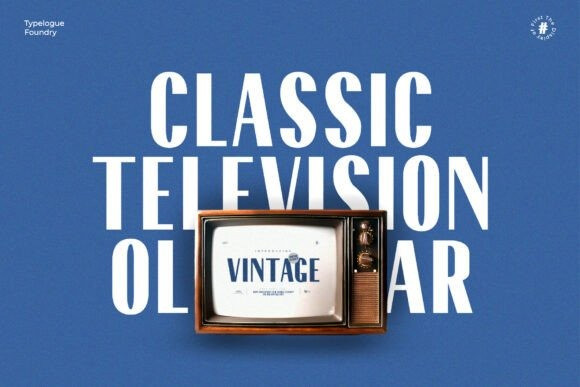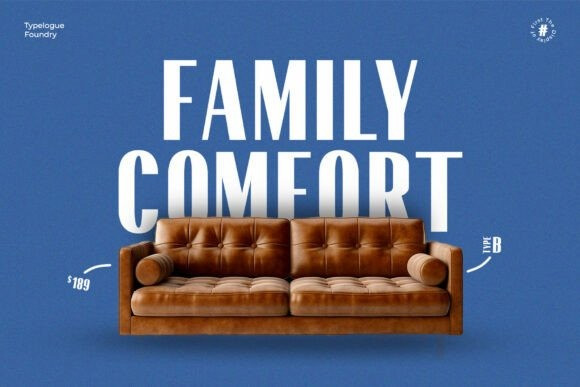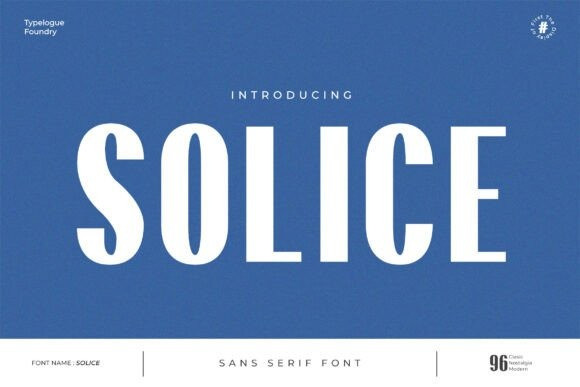
Solice Font
Solice Font, a refined sans-serif typeface designed for versatility and elegance. With its clean, balanced proportions and contemporary style, Solice is the perfect choice for both modern and timeless designs. Its sharp yet subtle edges create a professional and polished look, making it ideal for branding, editorial layouts, corporate projects, and digital content.